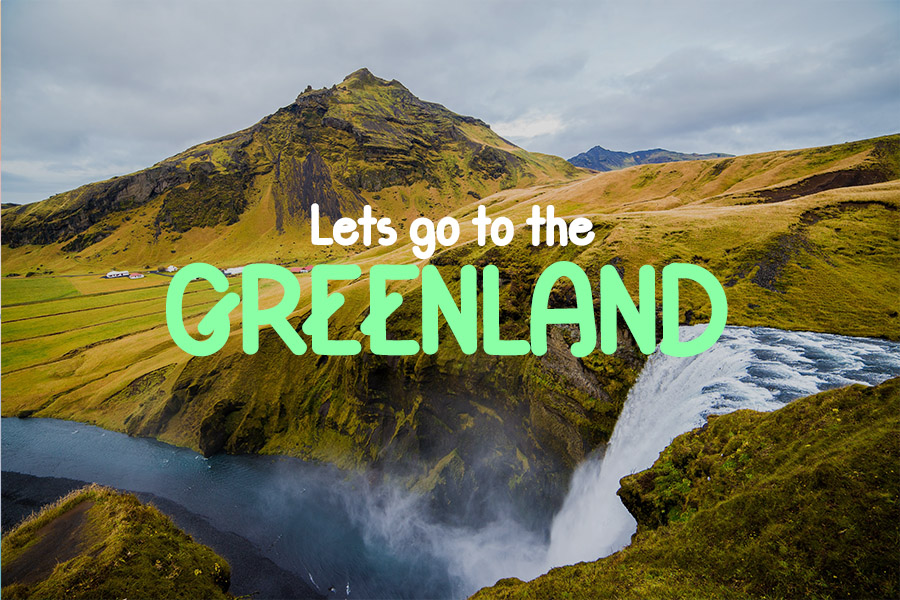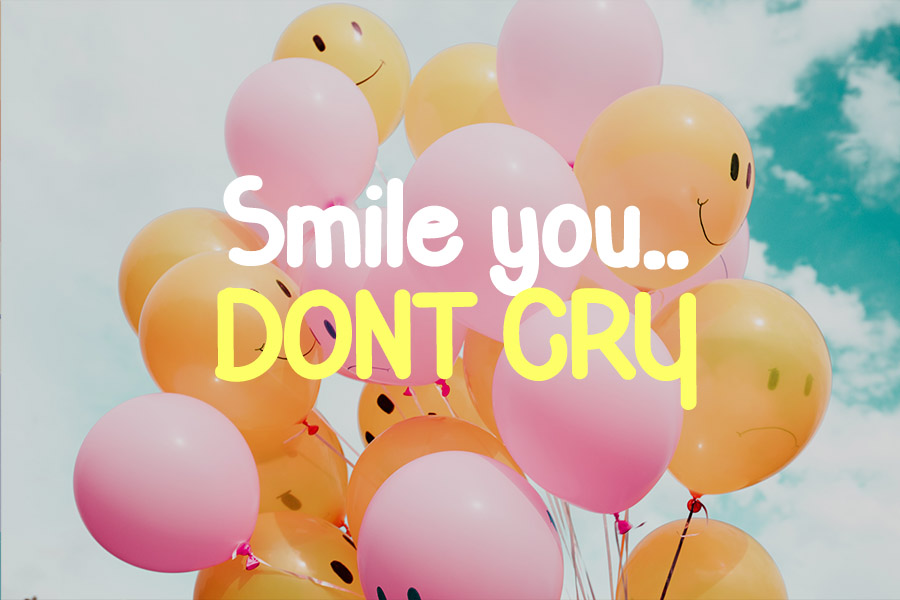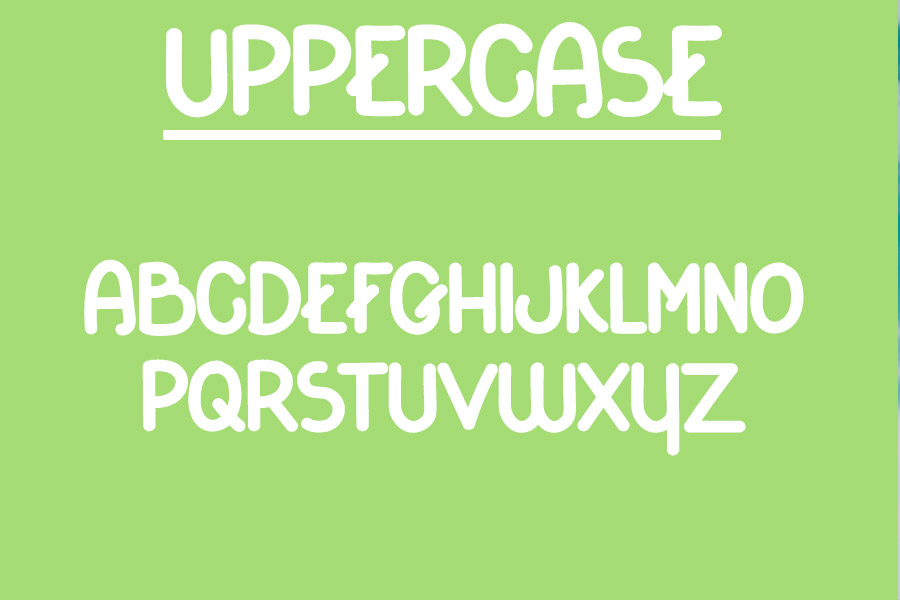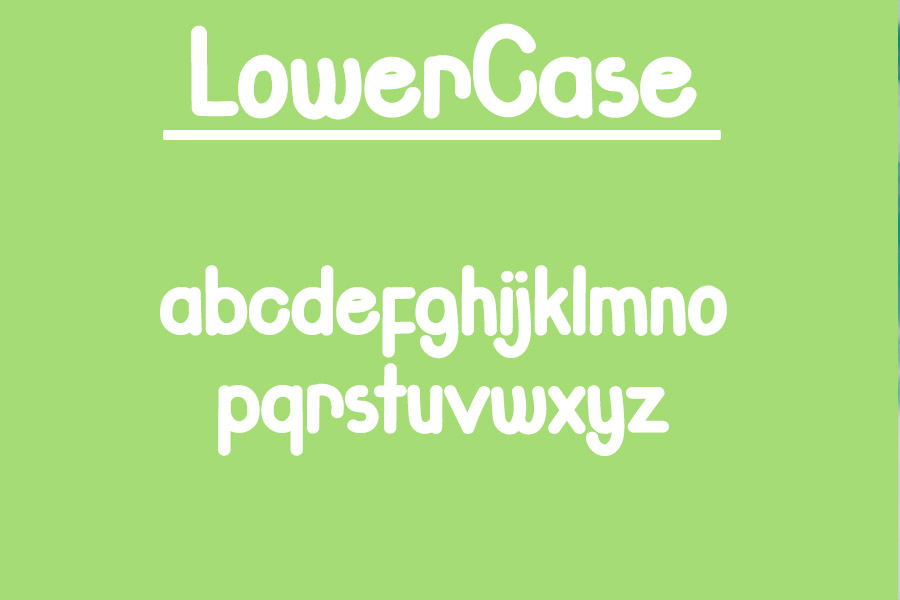
Grapephant Font
Grapephant Display Font
This is a simple and trendy handwritten font. Add it confidently to your projects, and you will love the results.